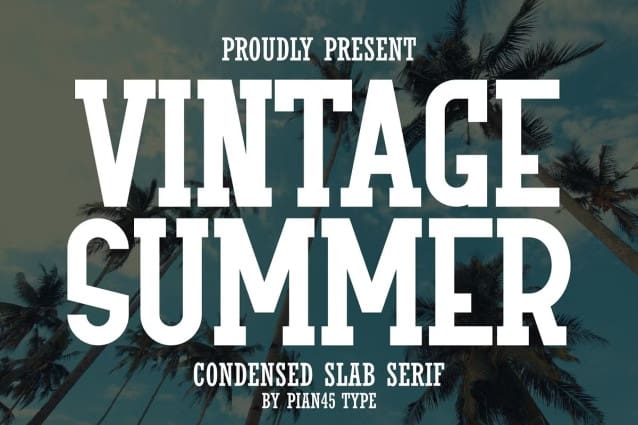
Vintage Summer Font
Vintage Summer Font is a charming and clean condensed slab serif font inspired by the essence of summer. This font adds a touch of classic sophistication and seasonal warmth to any creative projects. Perfect for posters, quotes, backgrounds, stylish t-shirts, mugs, trendy tote bags, pillows and sporty apparel.